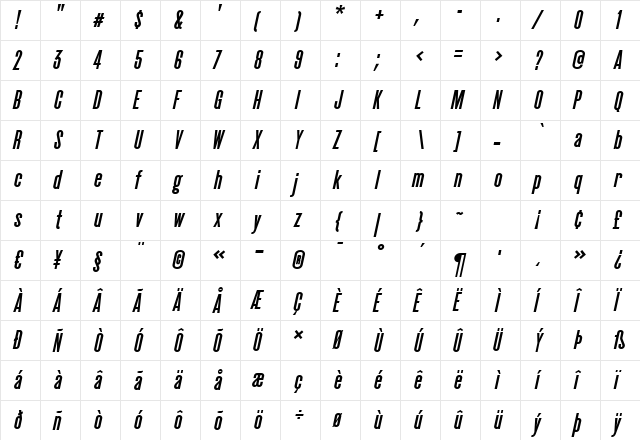
Cactus BoldItalic
Design Context for Cactus Typeface
Cactus offers clean, dependable letterforms without strong stylistic allegiance, making it a practical choice for designers who need flexibility. The slanted form adds forward momentum and visual energy. The heavy weight commands attention and anchors typographic hierarchies.